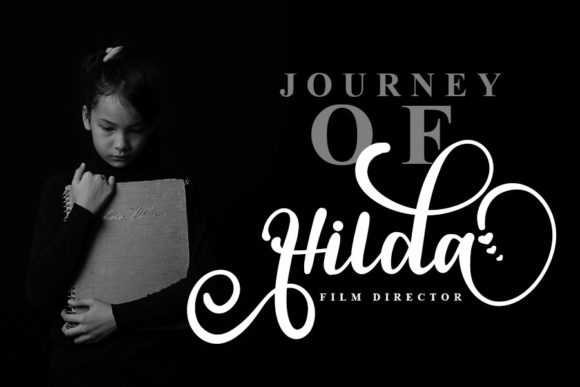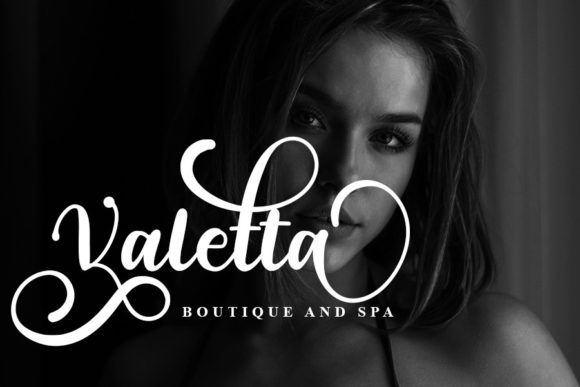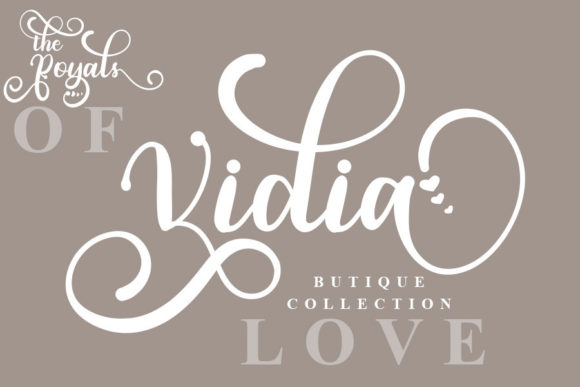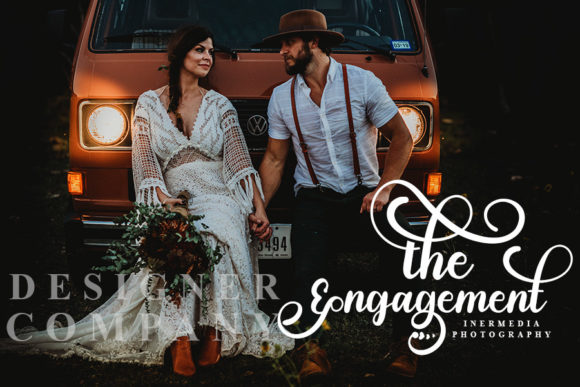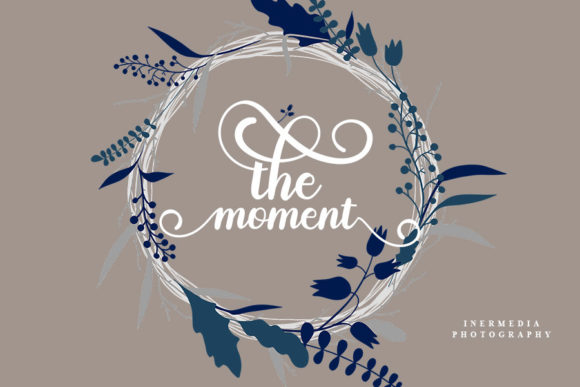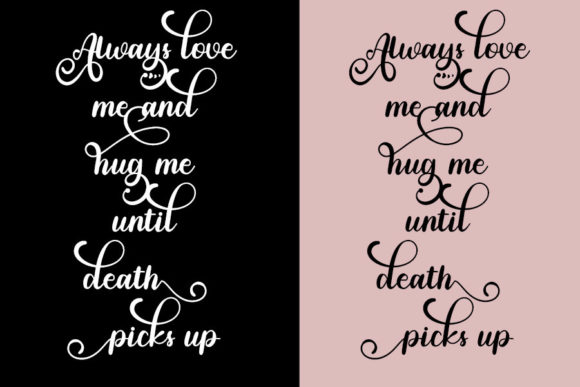
Introducing Blasthinga Font: Elevate Your Designs with a Stylish and Confident Handwritten Touch
In the world of typography, a font can make or break a design. For designers and crafters looking to add a touch of personality and style to their projects, Blasthinga Font is an exceptional choice. This gorgeous and bold handwritten font is specifically crafted to give your headlines and logotype projects a strong, confident, and dynamic look that’s sure to turn heads.
The Characteristics of Blasthinga Font
Blasthinga Font boasts a unique and captivating aesthetic that’s perfect for designers seeking to infuse their work with a sense of nostalgia and character. Its bold and confident appearance makes it an excellent choice for headlines, logotypes, and any project where you want to make a statement. The font’s handwritten nature gives it a personal and approachable feel, making it versatile for a wide range of design applications.
One of the standout features of Blasthinga Font is its PUA (Private Use Area) encoding. This means that accessing all the glyphs and swashes is incredibly straightforward. PUA encoding allows designers to easily navigate and utilize the font’s extensive range of characters and decorative elements without needing specialized software or complicated workarounds. This feature is particularly beneficial for those who want to experiment with different styles and variations in their designs.
Applications of Blasthinga Font
The versatility of Blasthinga Font makes it suitable for a myriad of design projects. Here are some of the areas where this font truly shines:
- Headlines and Titles: The bold and dynamic nature of Blasthinga Font makes it perfect for headlines and titles, where grabbing the reader’s attention is paramount.
- Logotypes and Branding: For businesses looking to create a memorable brand identity, Blasthinga Font offers a unique and stylish solution that can help a brand stand out.
- Posters and Flyers: Adding a touch of nostalgia and character, Blasthinga Font can elevate posters and flyers, making them more engaging and eye-catching.
- Digital Media: Whether it’s for a website header, social media graphics, or digital advertisements, Blasthinga Font can add a stylish and confident touch to any digital content.
Why Choose Blasthinga Font?
- Unique Aesthetic: Blasthinga Font offers a distinctive look that’s hard to find elsewhere, ensuring your designs stand out in a crowded marketplace.
- Ease of Use: Thanks to its PUA encoding, designers can easily access and utilize the font’s features, making the design process smoother and more efficient.
- Versatility: From print to digital, Blasthinga Font’s versatility means it can be used across a wide range of projects and applications.
- Nostalgic Character: For those looking to add a bit of nostalgia to their designs, Blasthinga Font’s handwritten style is sure to evoke a sense of familiarity and warmth.
Blasthinga Font is more than just a typeface; it’s a design tool that can transform your projects with its stylish, confident, and dynamic appearance. Whether you’re a professional designer or a crafter looking to add a personal touch to your work, Blasthinga Font offers a unique combination of aesthetics, functionality, and ease of use that’s hard to match. By incorporating Blasthinga Font into your design arsenal, you’re not just choosing a font – you’re choosing to elevate your designs and make a lasting impression on your audience.